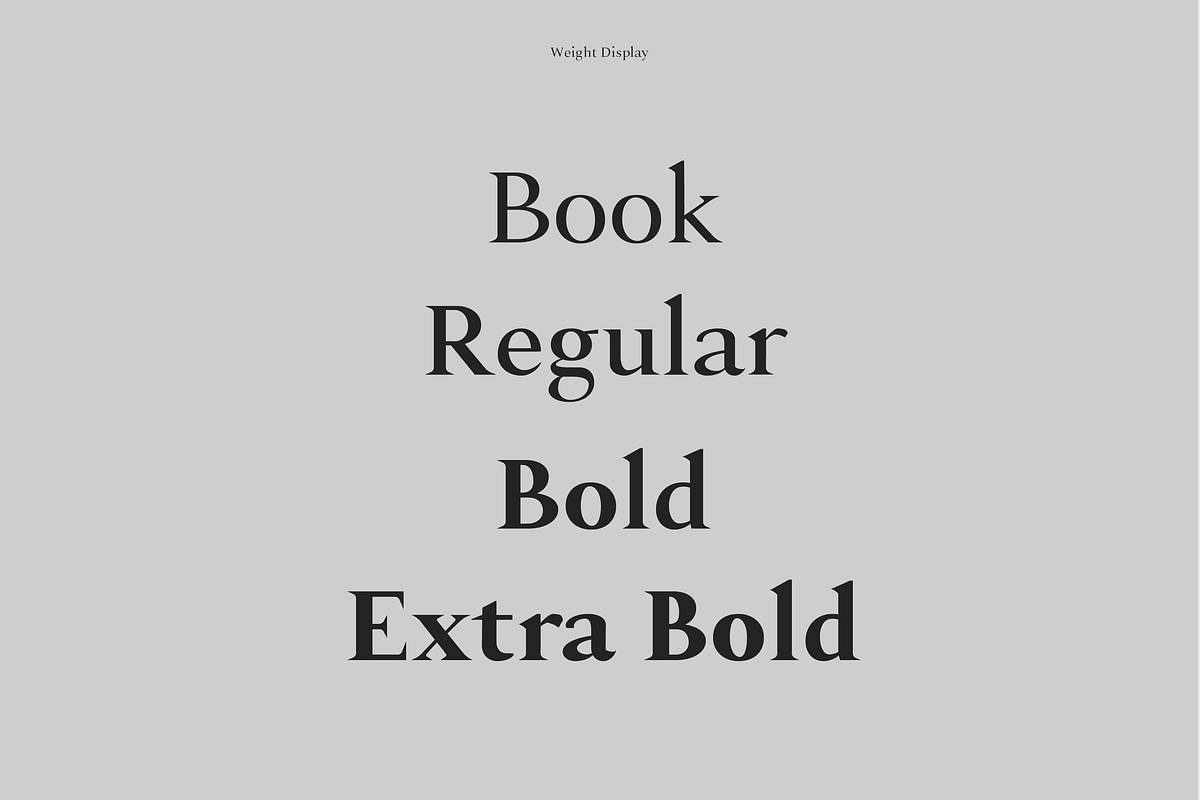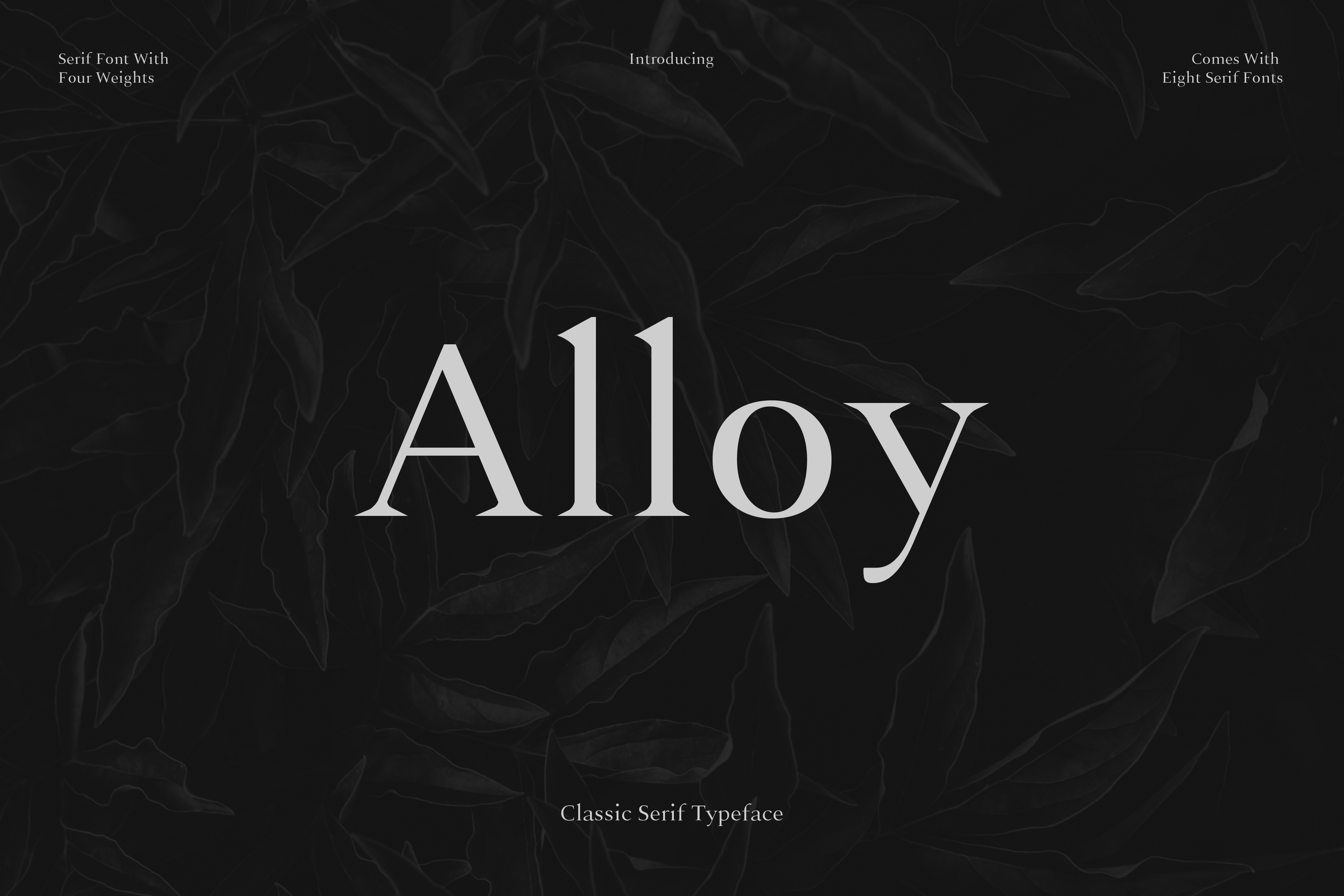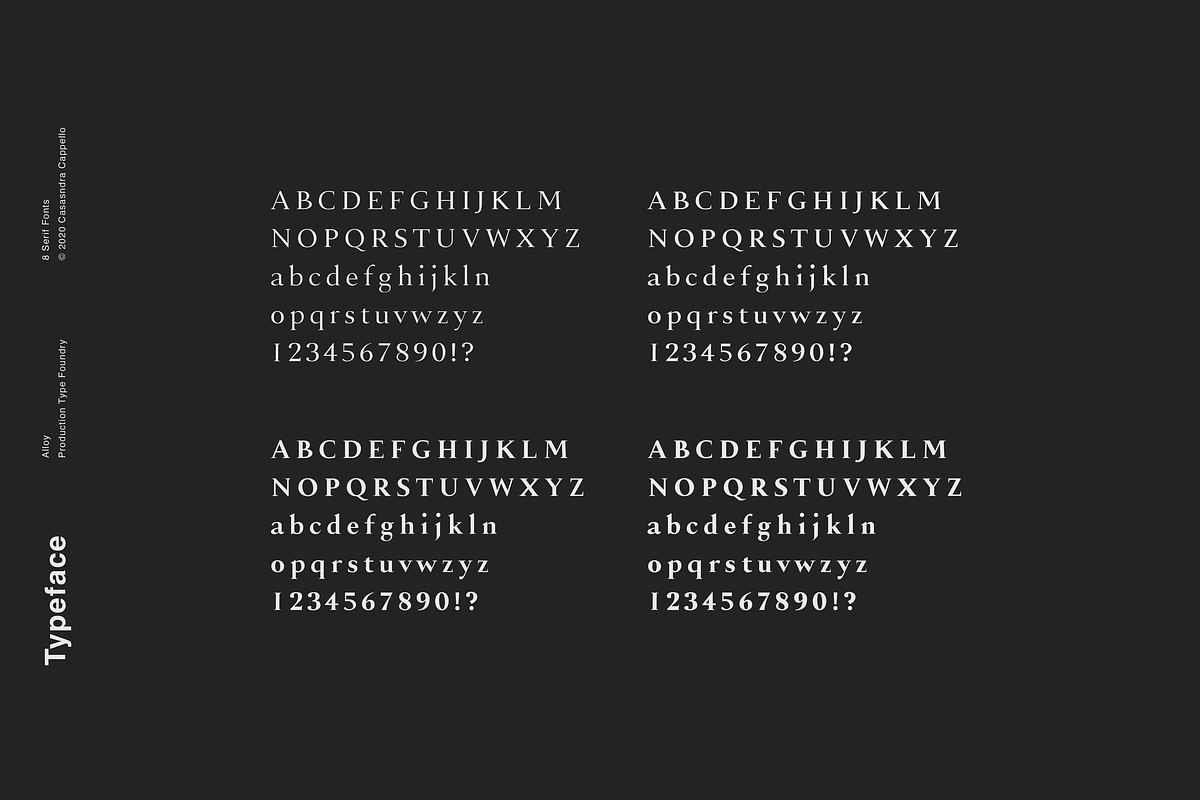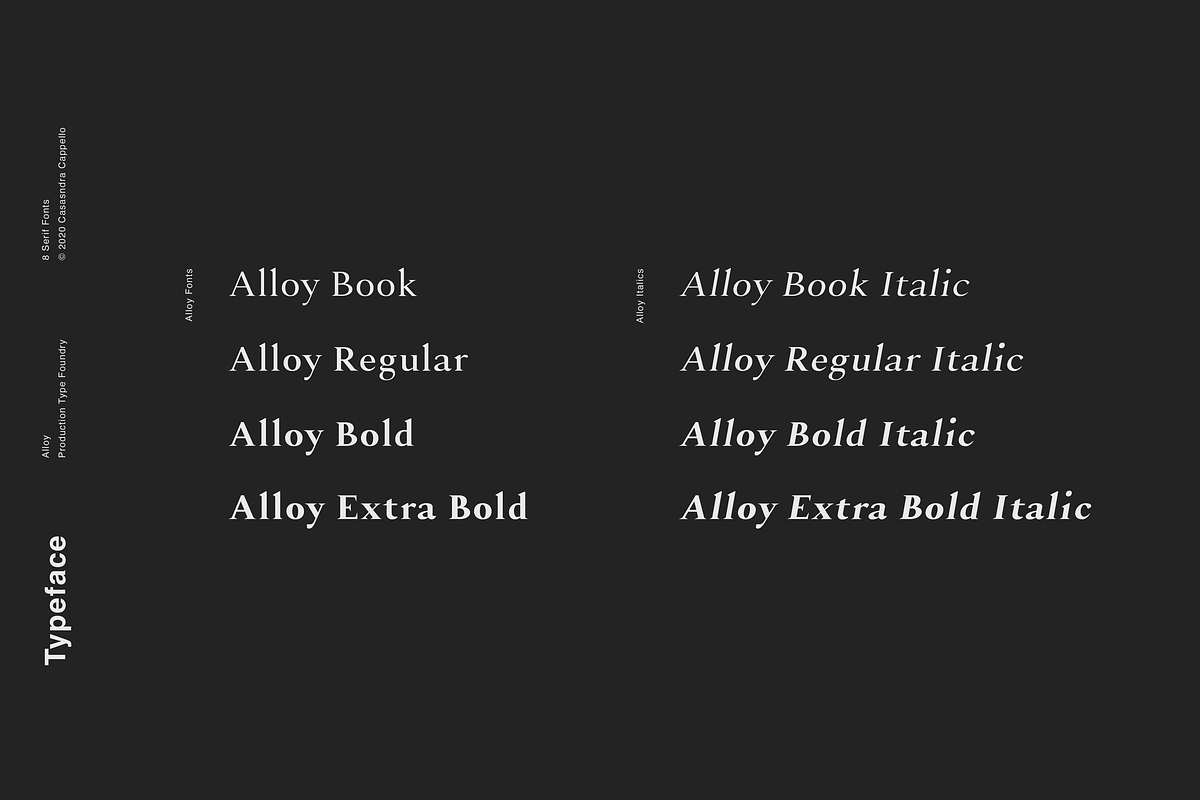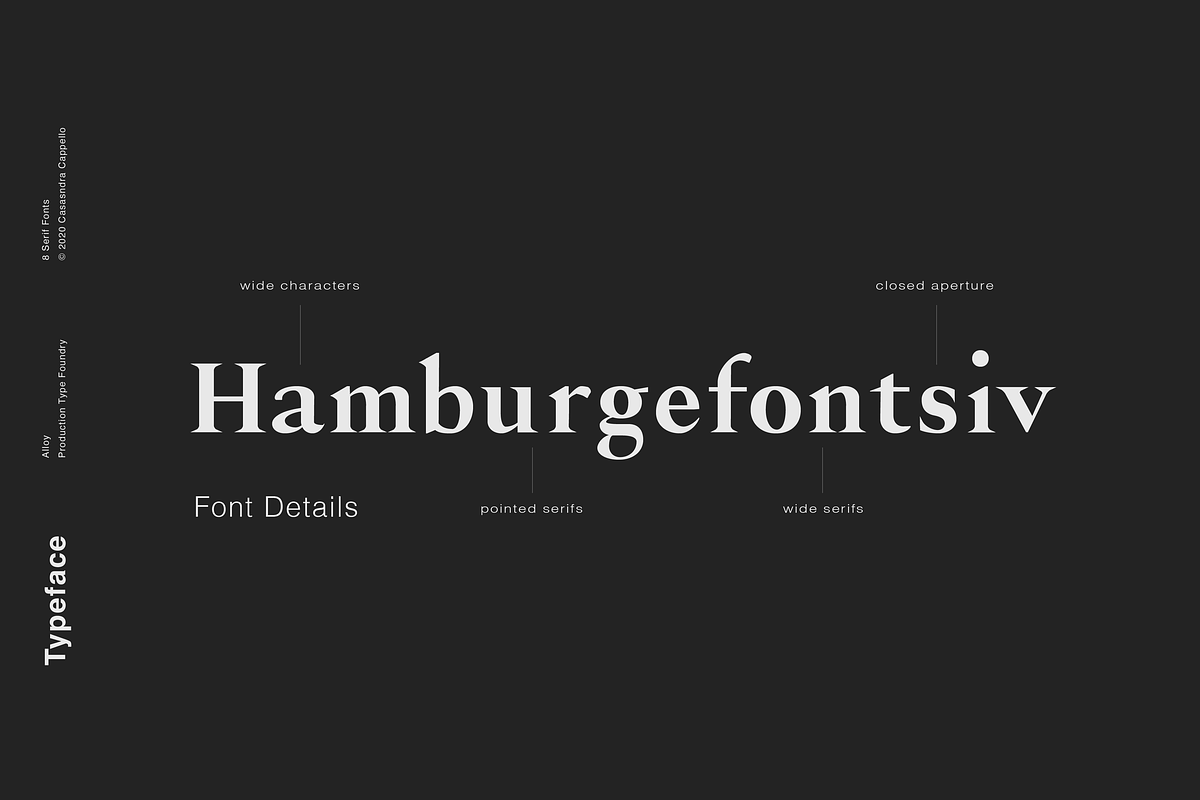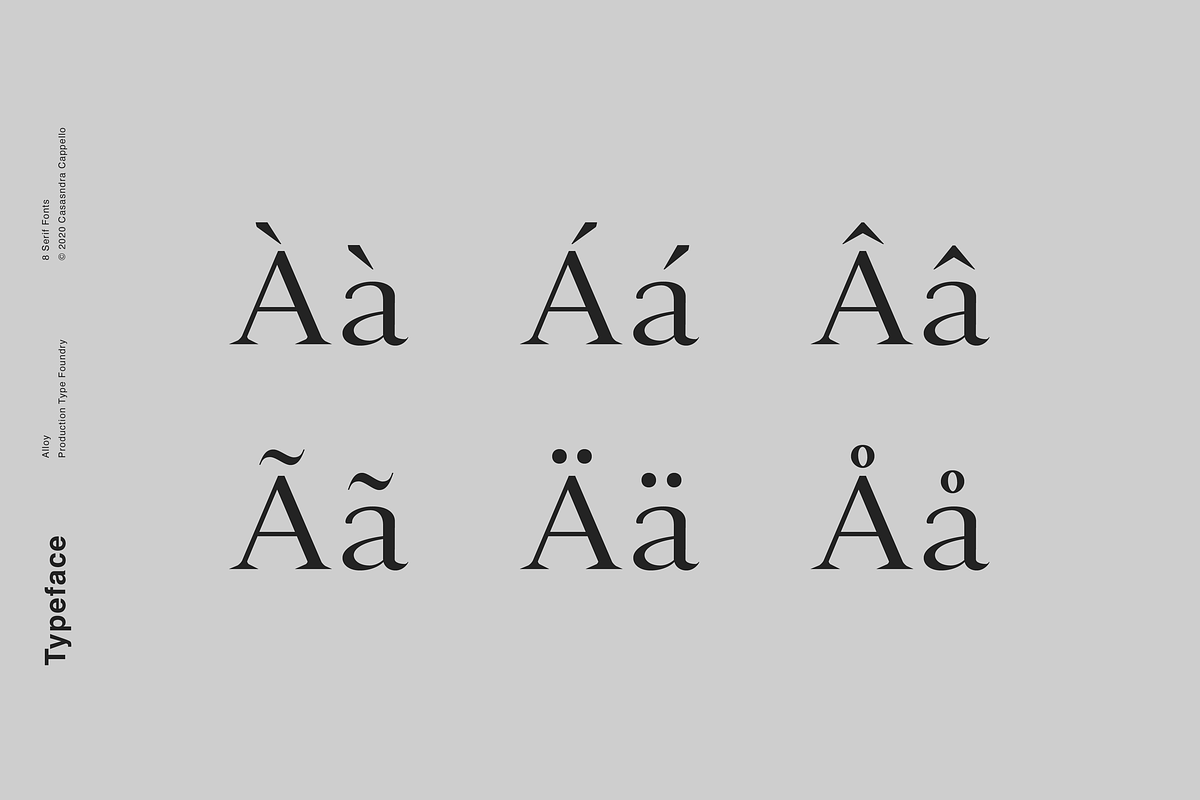
Alloy - A Sharp Serif Typeface
Alloy is a strong typeface with pointed serifs. It has a little bit of personality and can be used for headers and body copy. This font family includes all Latin characters (including accents), numbers, special characters, and punctuation.
Alloy includes eight fonts in OTF format: Four weights and four italics.